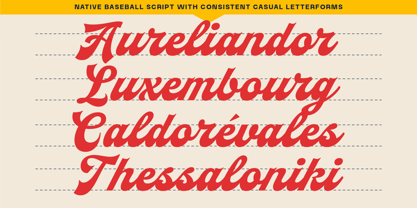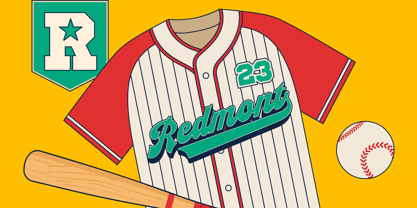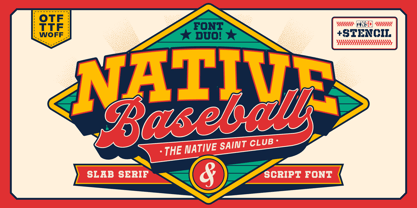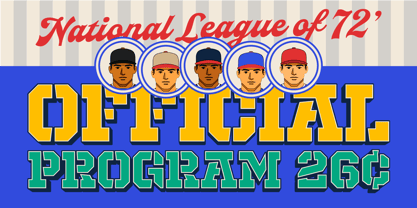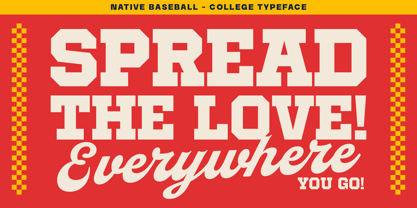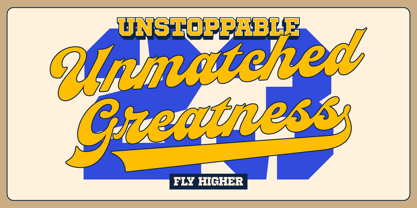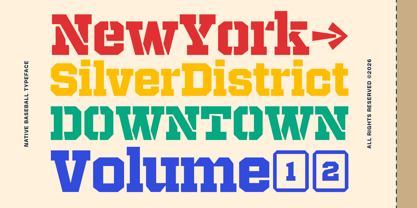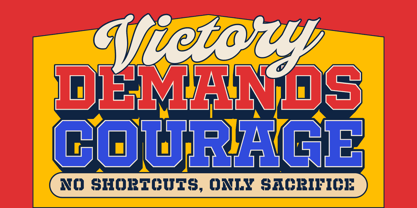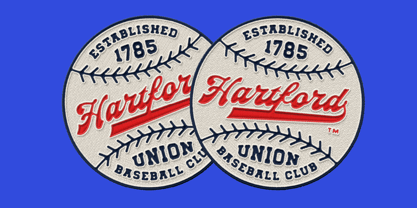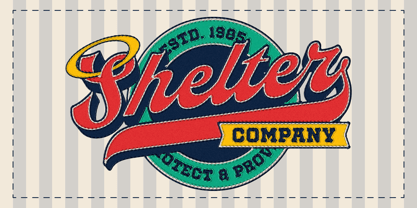
Native Baseball
von The Native Saint Club
Die Schriftfamilie Native Baseball wurde von Bagas Ferdiansah, Septianto Nugroho entworfen und von The Native Saint Club veröffentlicht. Native Baseball enthält 3 Stile und Familienpaketoptionen. Mehr über diese Familie
Native Baseball is a retro varsity font trio that contains a Script, Slab Serif and Slab Stencil. This font trio is perfect for baseball or football logos! The script font has flowing strokes and decorative elements, making it ideal for headlines and logos, while the slab serif and stencil offers bold shapes and uniform stroke widths, giving it a solid, strong feel. It’s perfect for branding, packaging, advertising, and printed materials that require a retro, vintage feel.